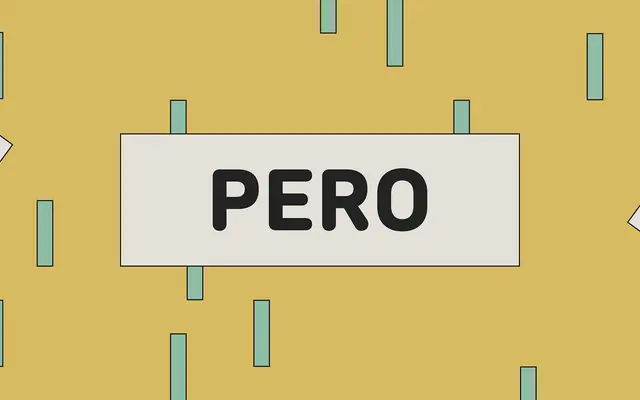
Pero
A condensed rounded sans-serif by Ryoichi Tsunekawa, built on a modular skeleton with minimised stems and soft terminals across seven weights.
The family runs from ExtraLight to ExtraBold with a large x-height to aid legibility at smaller sizes, making it viable for body text as well as display work. Letterforms are constructed on a modular grid, then stripped of unnecessary strokes and finished with rounded terminals, producing a clean but warm result. Language support covers Western, Central and South Eastern European scripts plus Afrikaans, and OpenType features include superior and inferior figures, fractions, numerators and denominators.
A condensed rounded sans-serif with modular construction and soft terminals; sits between geometric and humanist traditions with its contemporary urban character and warm approachability.